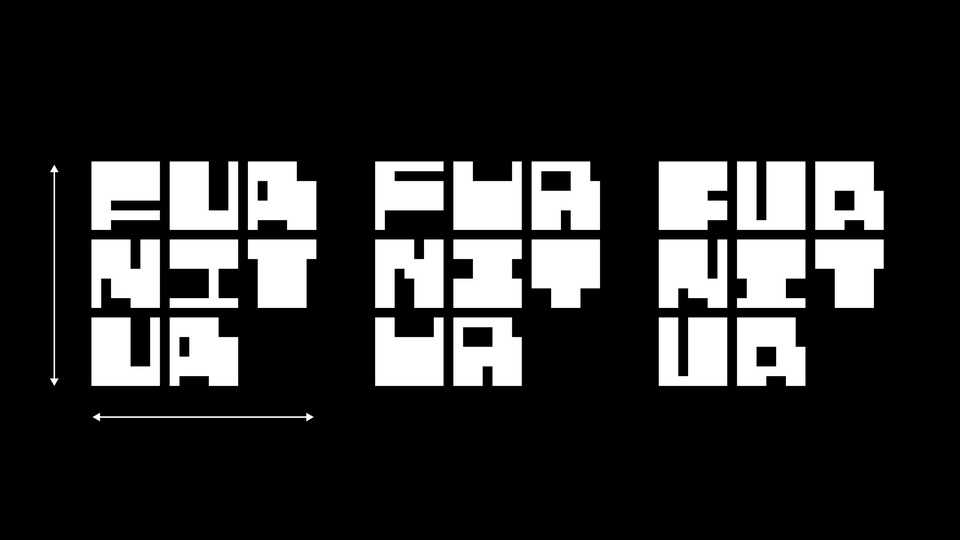
Download Furnitur font, an experimental variable display typeface built on a modular grid system. Its bold, blocky forms and pixel-inspired shapes create a distinct visual rhythm that feels both digital and architectural.
Designer: Alexey Atapin